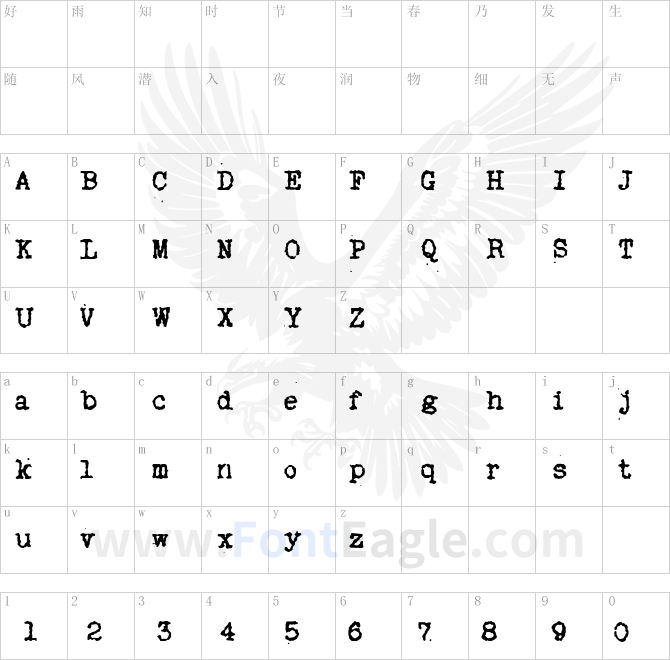
- Font name:My Old Remington
- Font Full Name:My Old Remington
My-Old-Remington is a great font, widely used in graphic design, single-page menu design, poster design and other fields, and is deeply loved by designers.My-Old-Remington download.